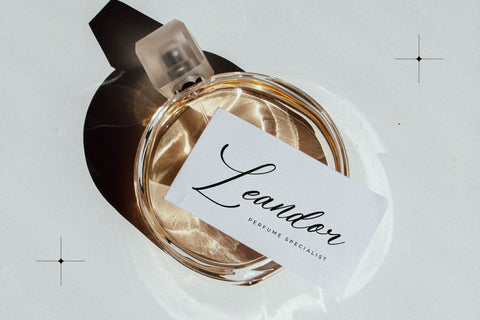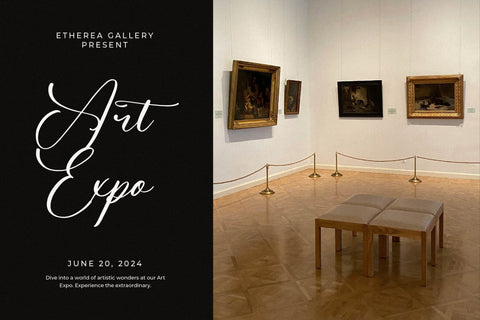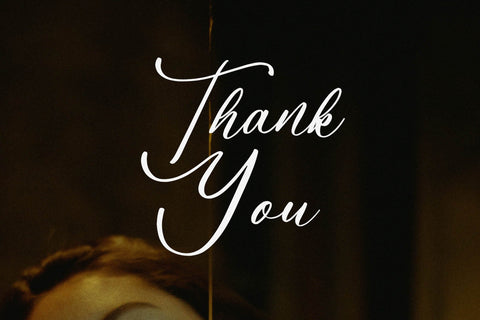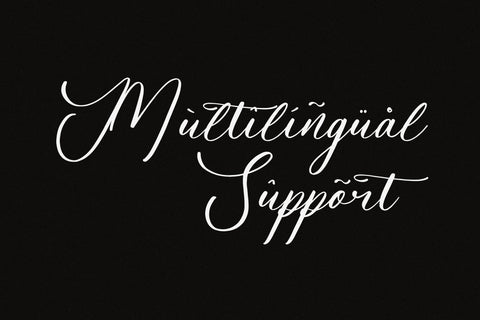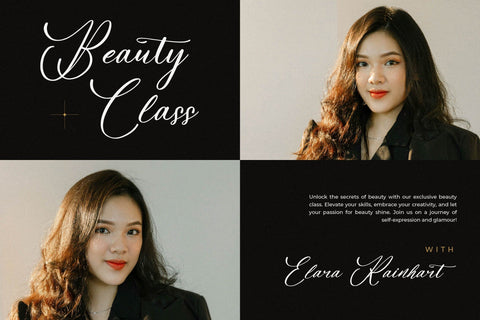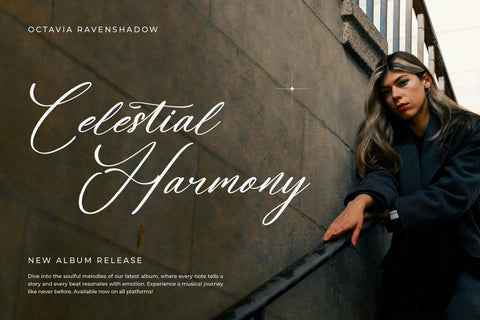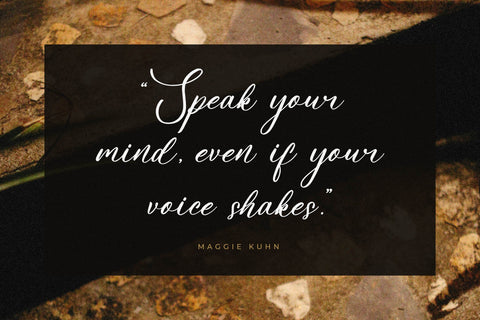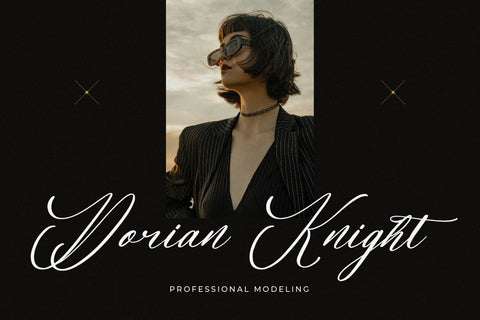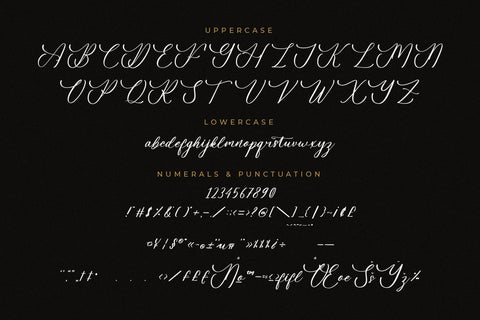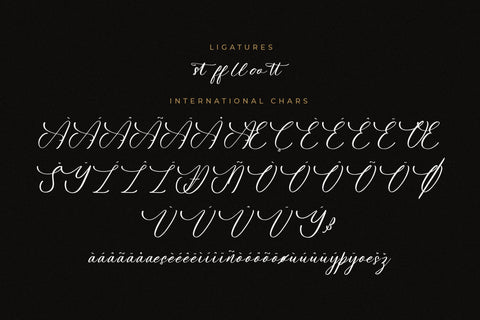
Fellyttsia - Beauty Script Font
Fellyttsia - Beauty Script Font , from Letterena, is a Luxury Script font, suitable for any projects such as: logos, branding projects, homeware designs, product packaging, mugs, quotes, posters, shopping bags, t-shirts, book covers, name card, invitation cards, greeting cards, label, photography, watermark, special events, and all your other luxury and beautiful projects that need a Luxury serif taste.